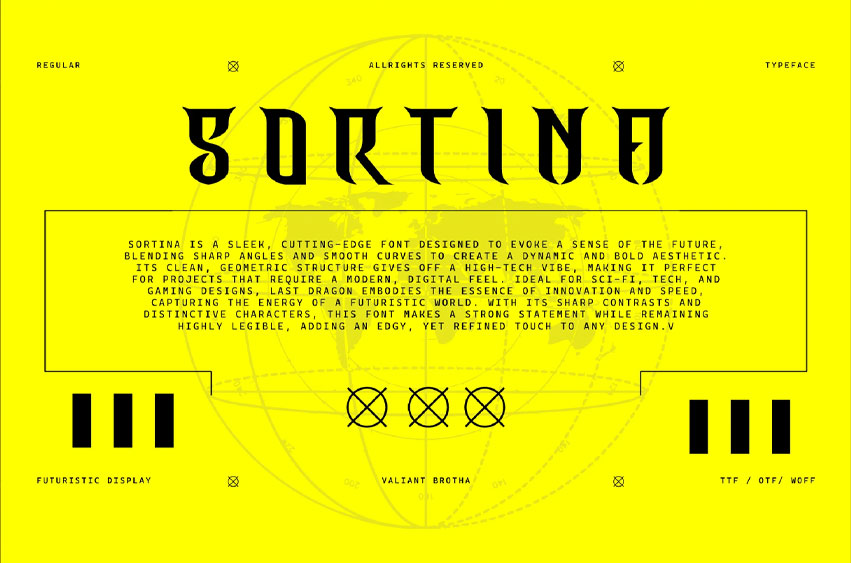
Sortina Font
Sortina Font is a modern, sleek typeface that combines geometric precision with a touch of sophistication. Its clean lines and well-crafted curves give it a contemporary, polished look, making it ideal for both professional and creative applications.
The balanced proportions of Sortina create a harmonious flow that ensures readability while still making a bold design statement. Whether used in branding, editorial design, or digital media, Sortina Font adds a touch of class and modernity to any project. Its versatility and stylish simplicity make it the perfect choice for designs that demand a fresh, elegant aesthetic.